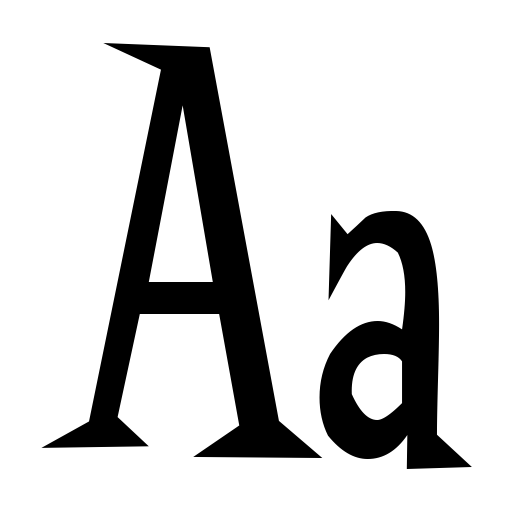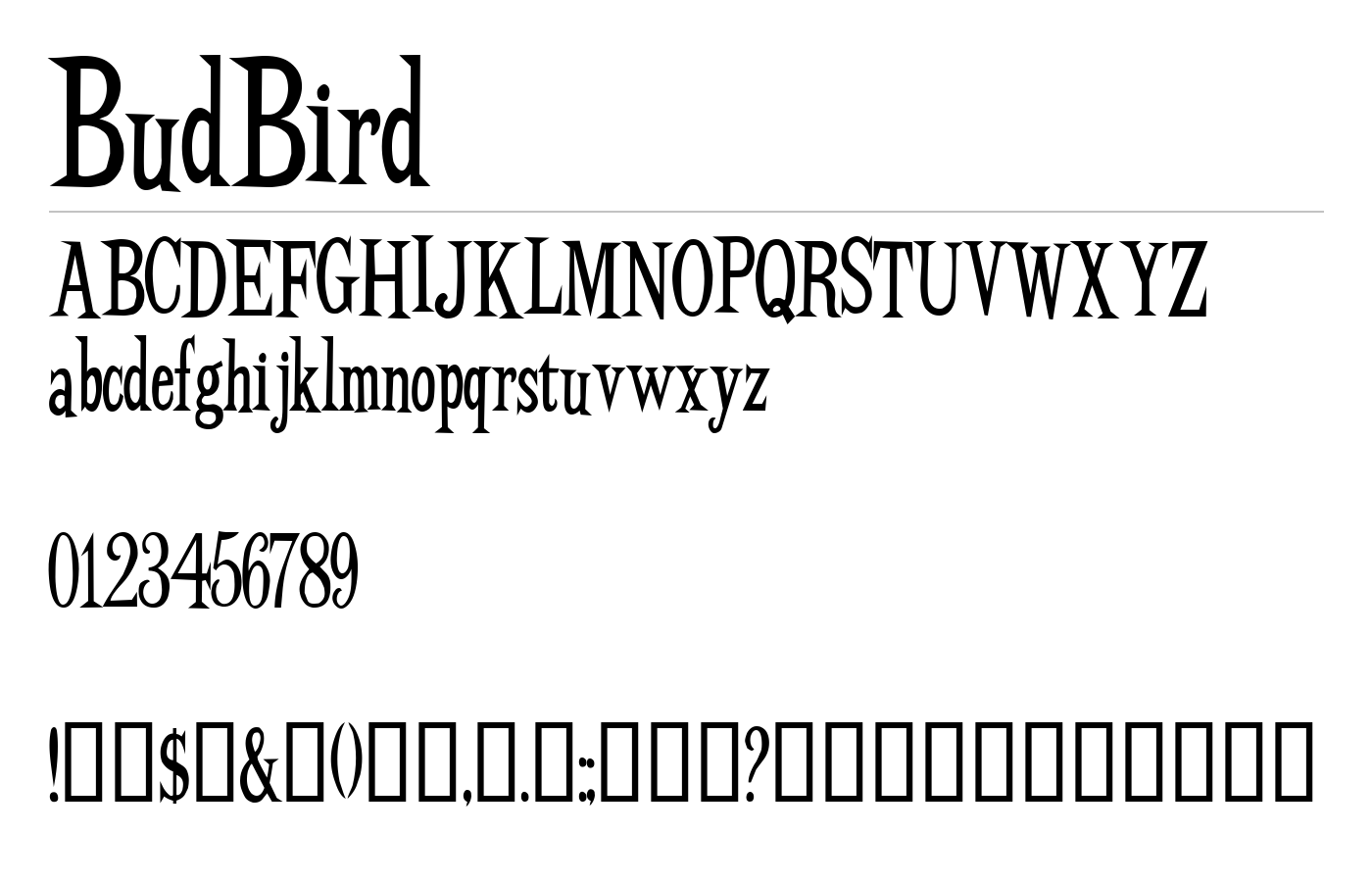
BudBird is a narrow serif font with a distinct vintage charm, featuring high contrast between thick and thin strokes and sharp, bracketed serifs that add character and elegance. Its slightly condensed letterforms and unique details, such as the curved tail on the Q and tapered strokes, make it ideal for eye-catching headlines, branding, and editorial designs that seek a blend of traditional sophistication and quirky flair. This font works well where a bold, refined, yet playful personality is desired.
BudBird Font
About BudBird Font